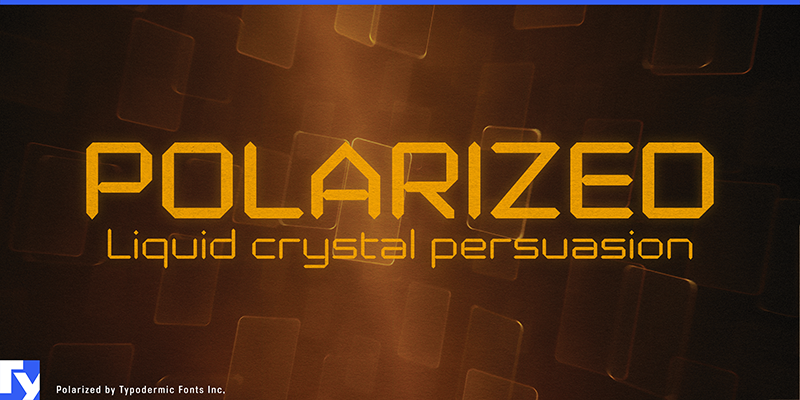
Polarized
Font familyPolarized
CreatorTypodermic Fonts
Polarized draws inspiration from the clean geometry of LCD readouts, reworked for modern typography. Its pointed stroke joins trim away excess weight where lines meet, keeping the letters crisp and evenly balanced. Squarish proportions and subtly softened corners give it a technical voice without feeling cold or mechanical. Well suited to tech branding, gaming titles, packaging, and futuristic interfaces, Polarized delivers clear, confident typography with a distinctly engineered edge. These fonts include a license that allows free commercial use: sometimes referred to as a desktop license. This allows you to install the fonts on a computer and use them to create posters, web graphics, game graphics, t-shirts, videos, signs, logos and more. Read the license agreement for details. If you'd like to embed this font in an app, on the web or anything that's not covered by the desktop license agreement, visit the link below. You'll find distributors who offer different types of licenses, or you can contact me for help. https://typodermicfonts.com/polarized/ These free fonts are part of a larger font family. Check out the rest of the family through the link above.